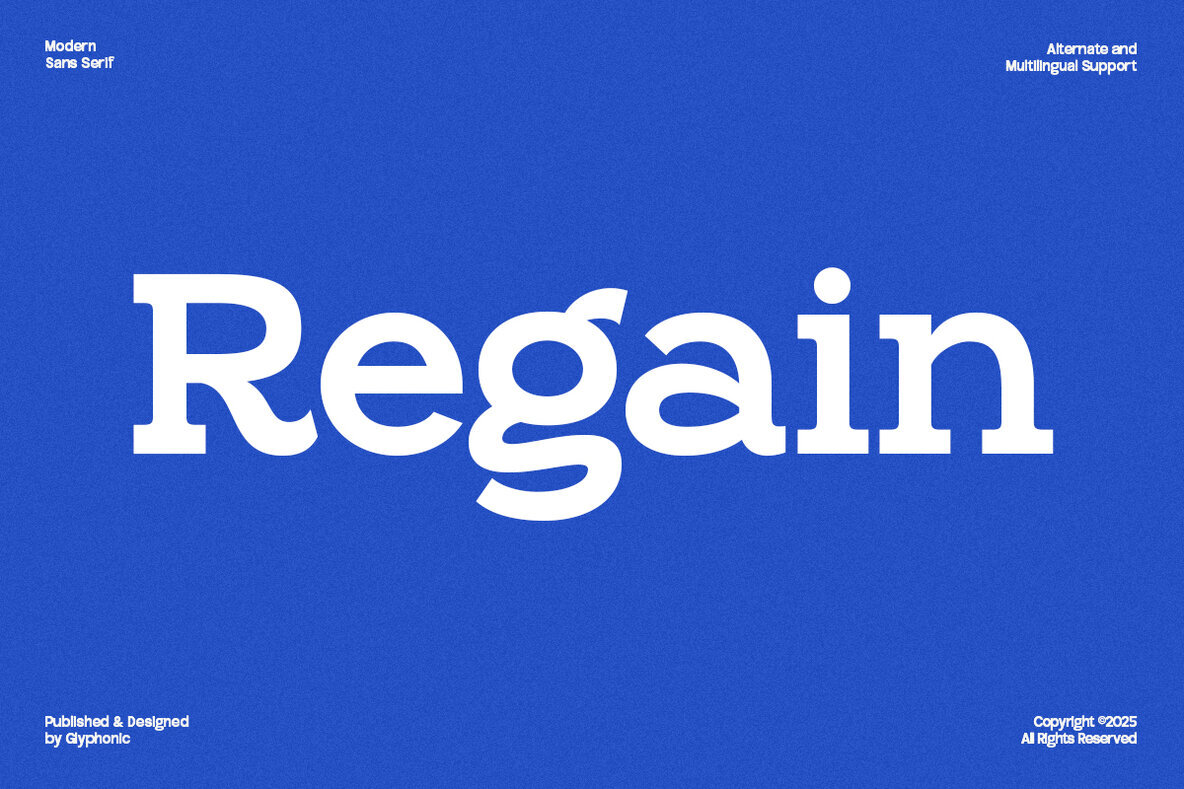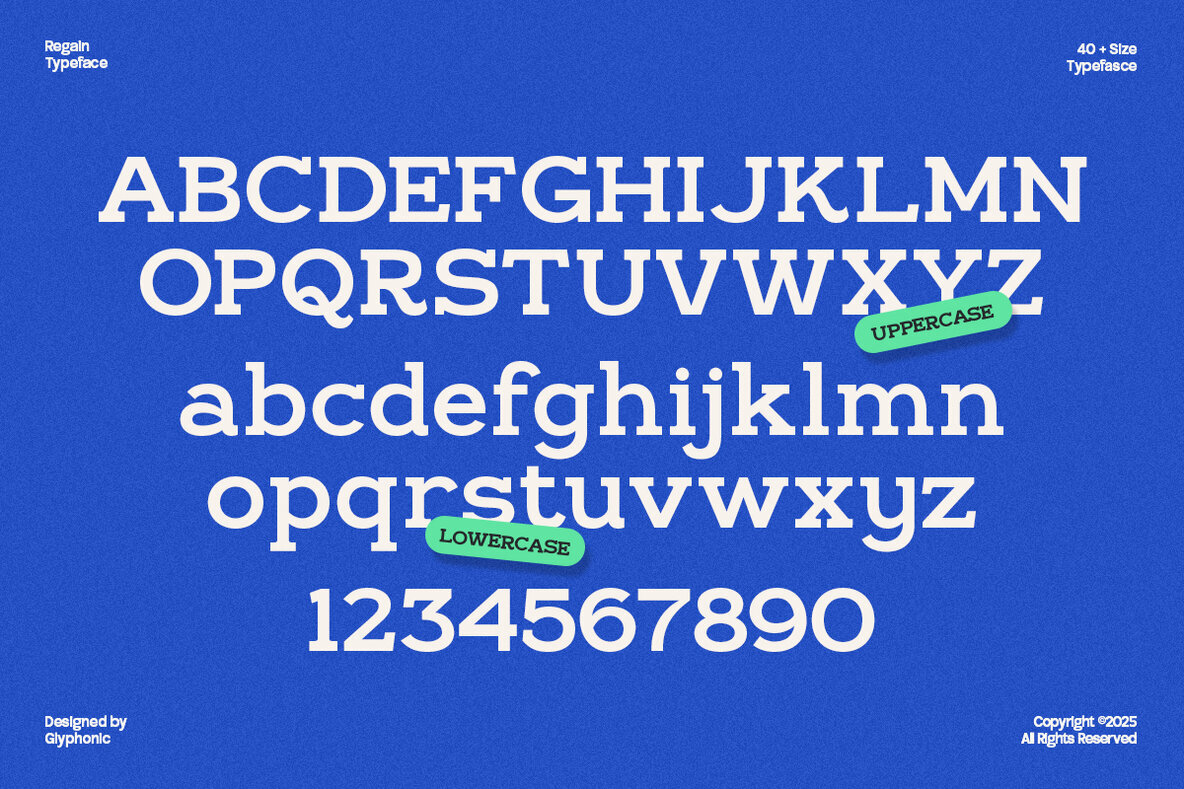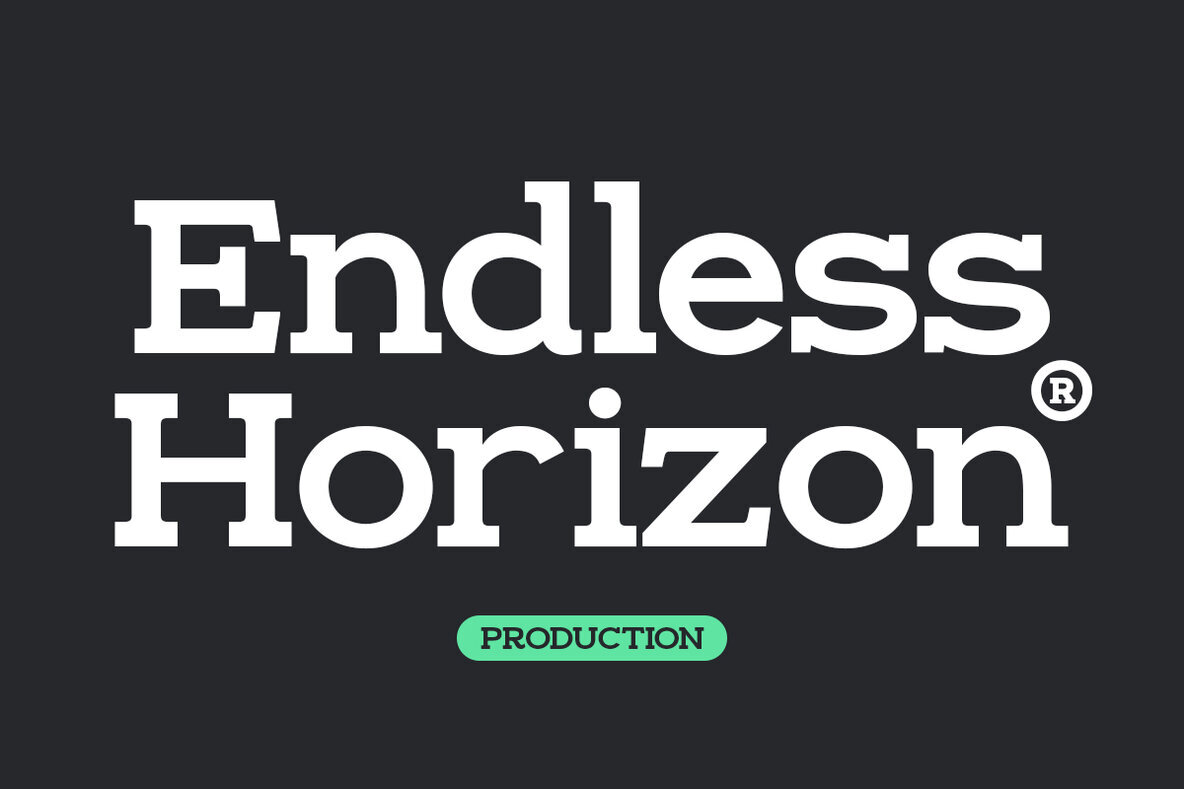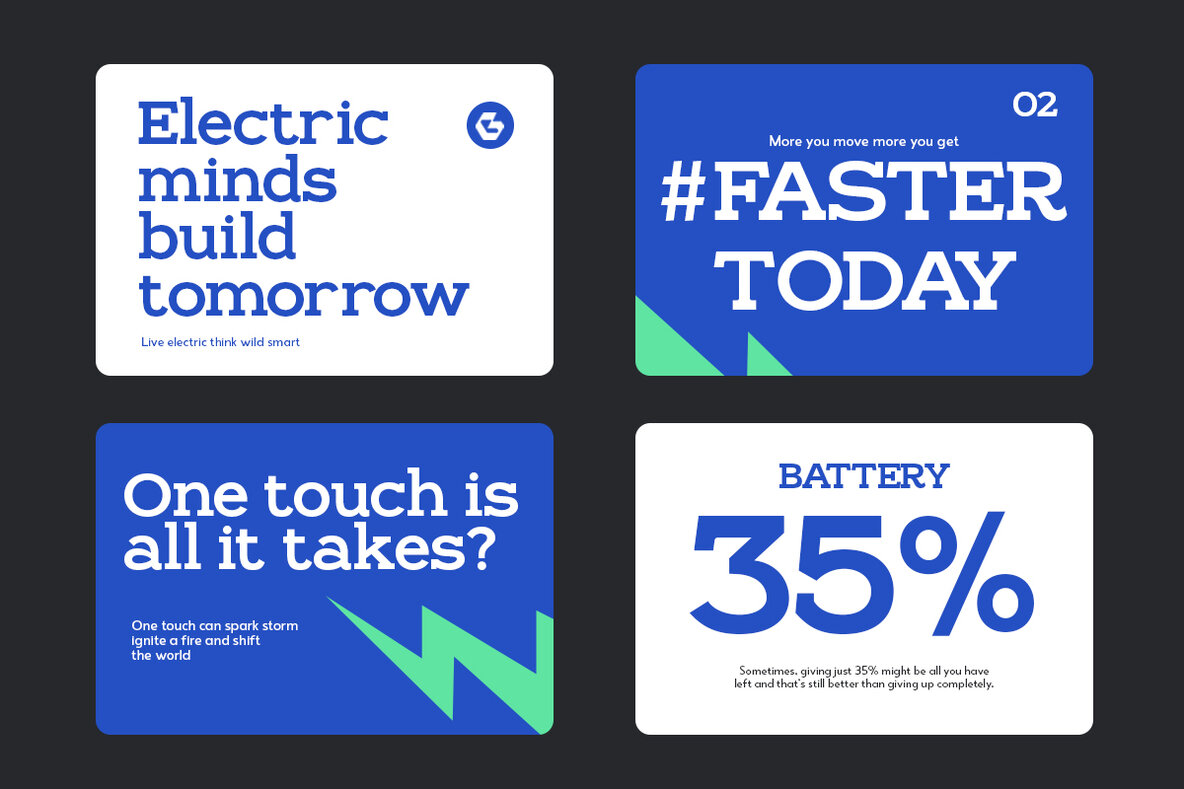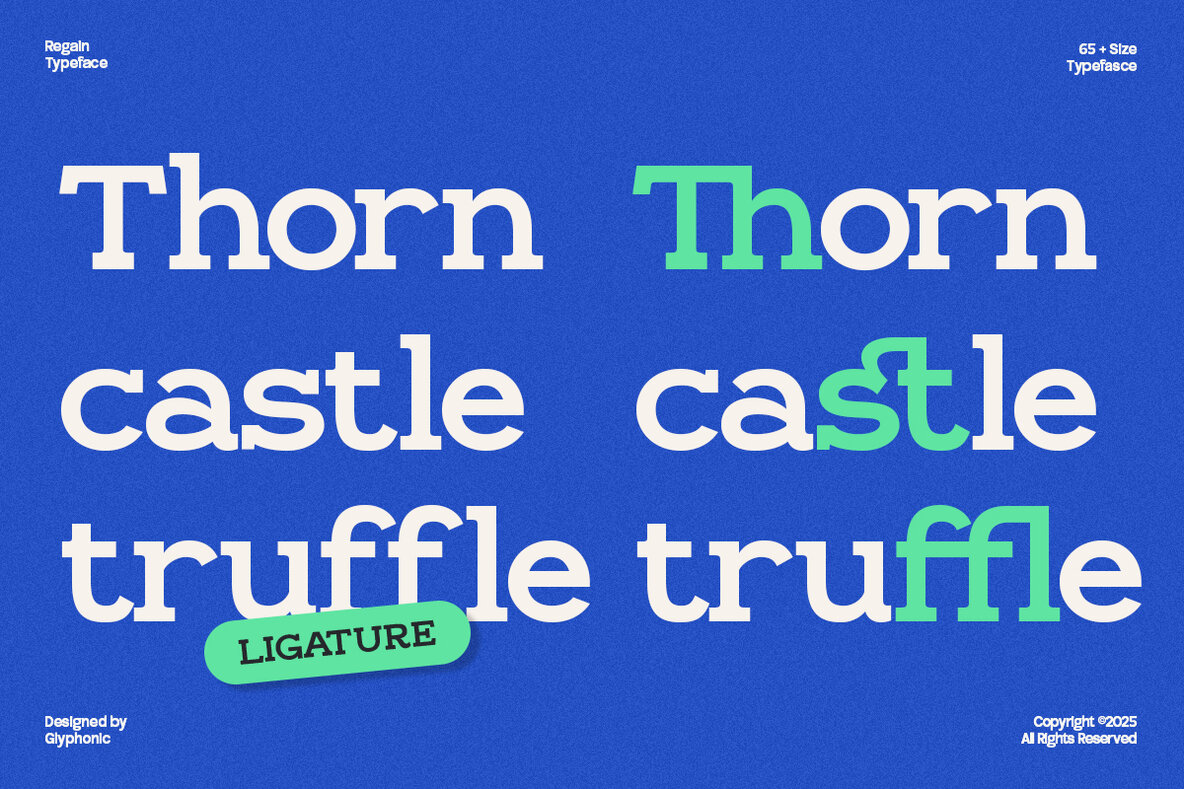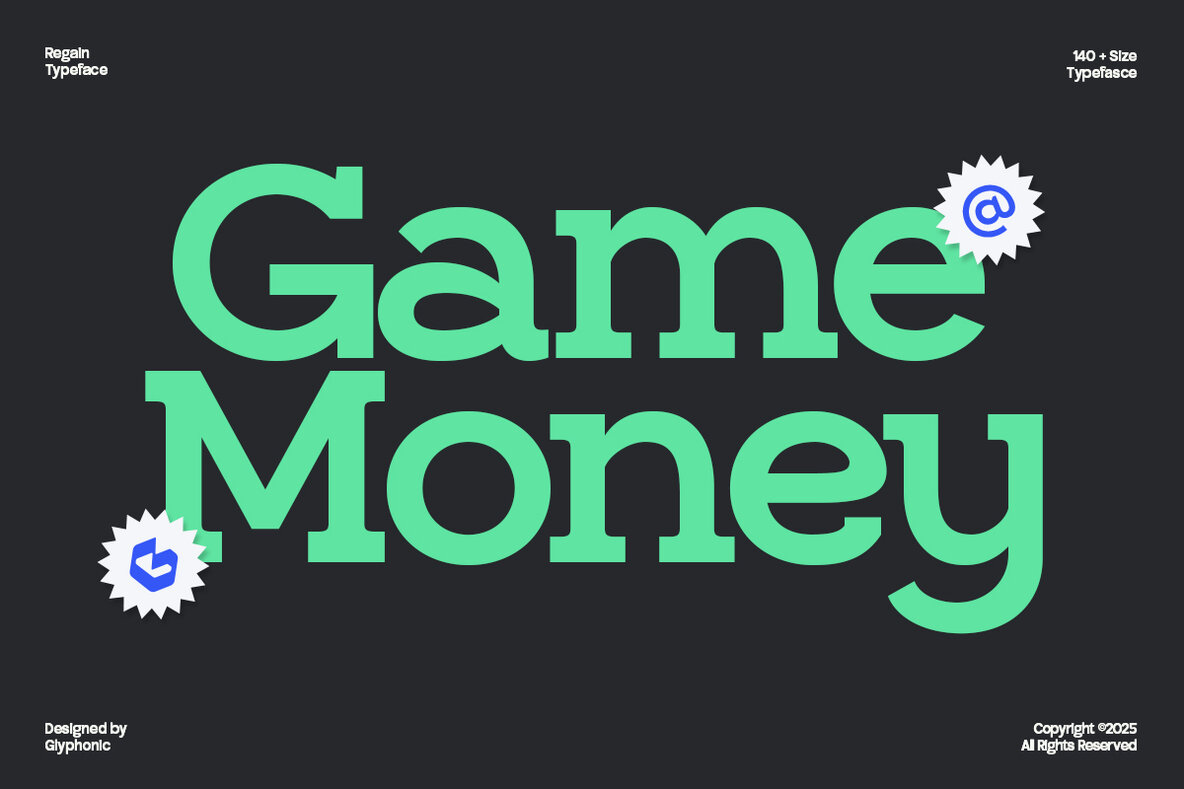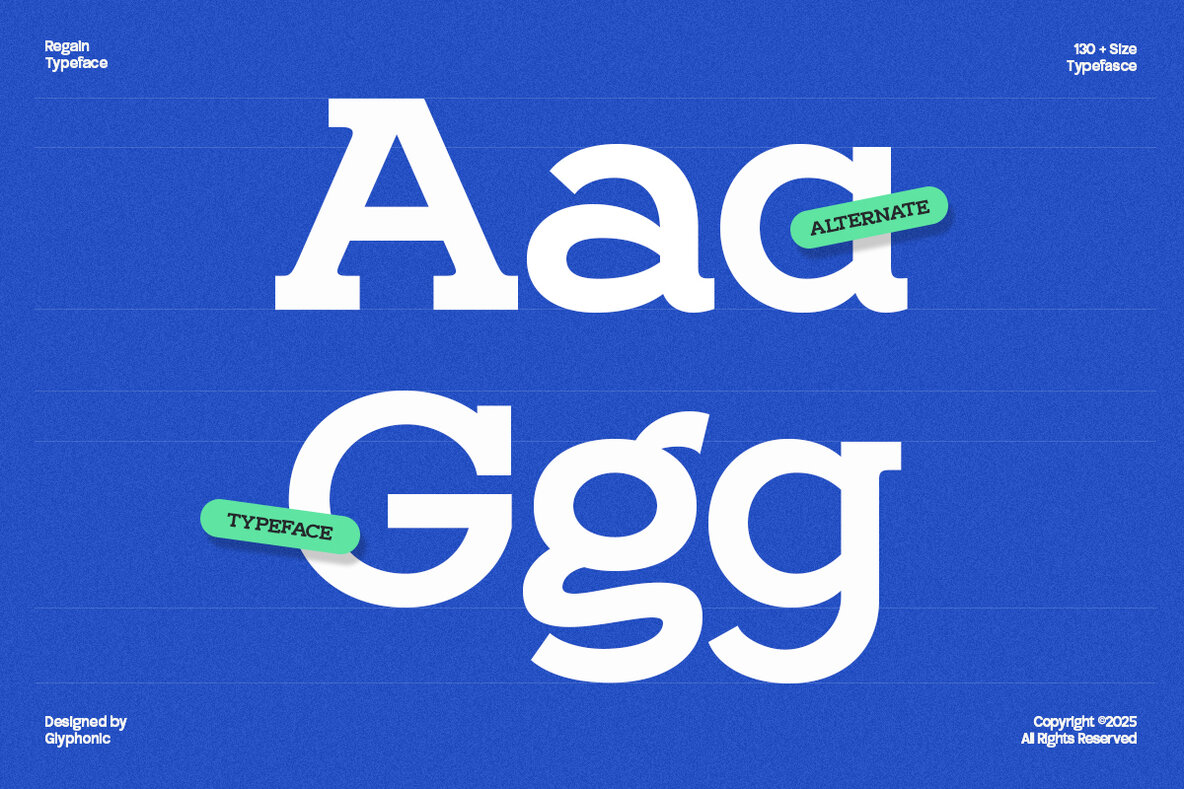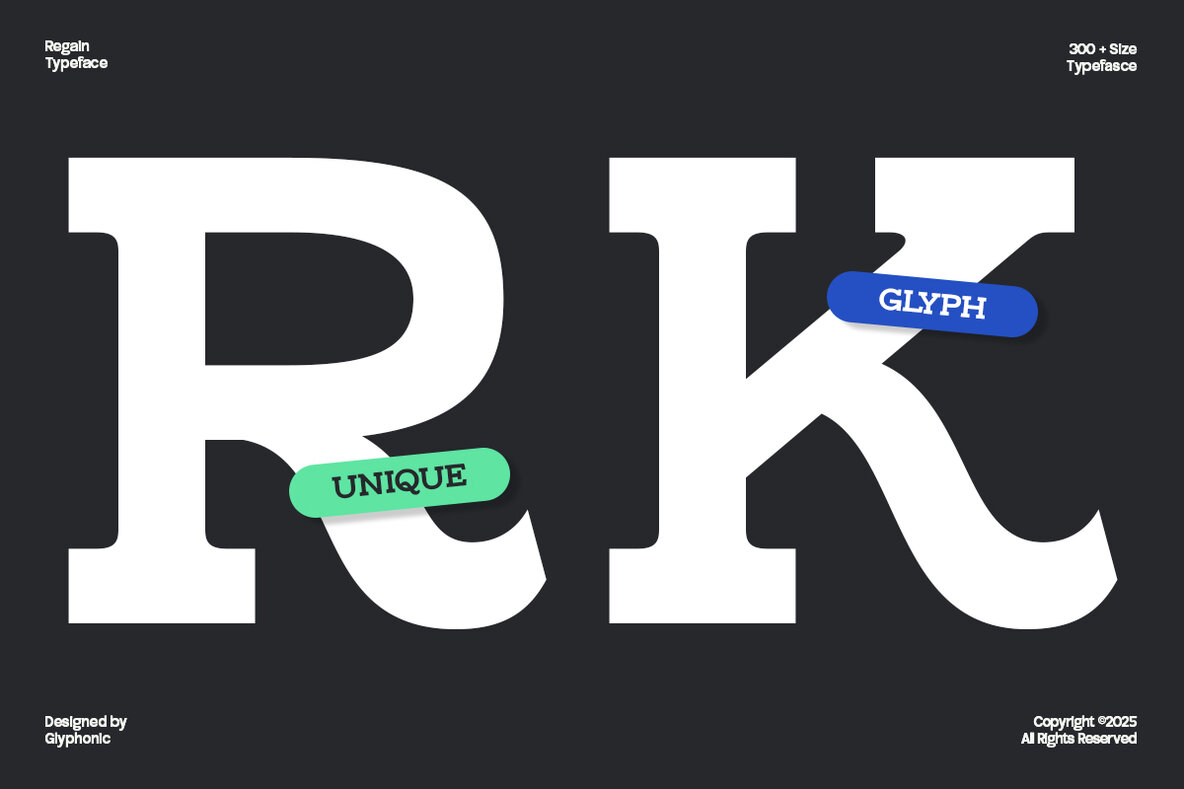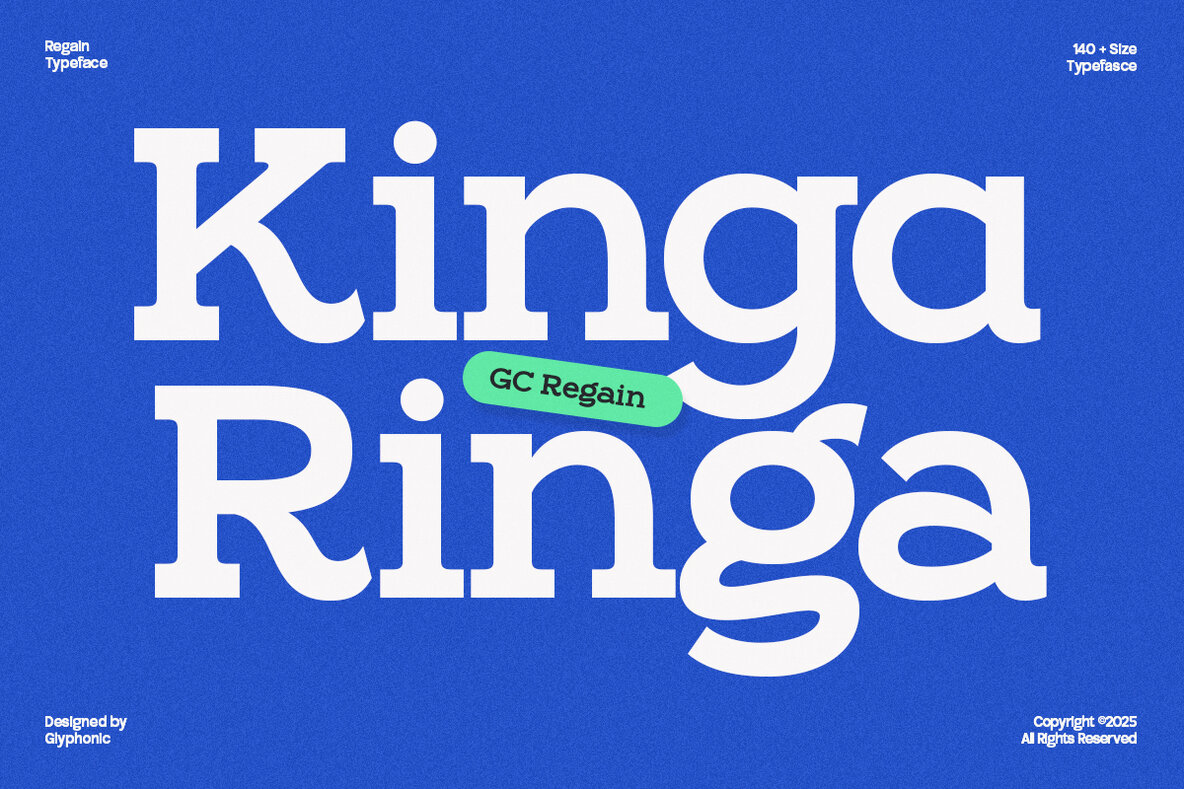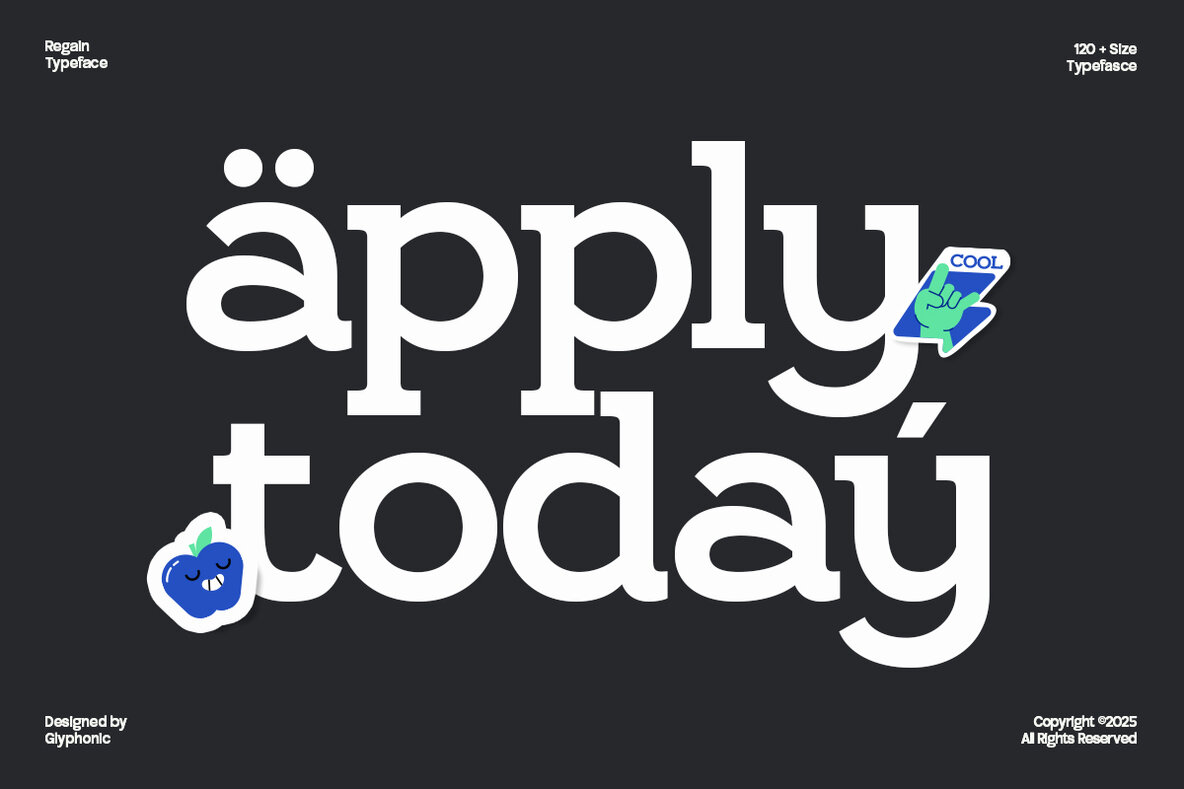
GC Regain Font
GC Regain Bold
The GC Regain typeface melds vintage strength with modern confidence, making it an impeccable choice for headlines, branding, logos, packaging, and editorial layouts. Its solid structure and bold display are crafted to leave a lasting impression. The distinctive thick slab serifs and impactful letterforms of GC Regain add a commanding presence and personality to any design. Whether you're working on fashion, lifestyle projects, or bold artistic visuals, this slab serif offers versatility and unapologetic style. Features:GC Regain: The Bold Display Slab Serif